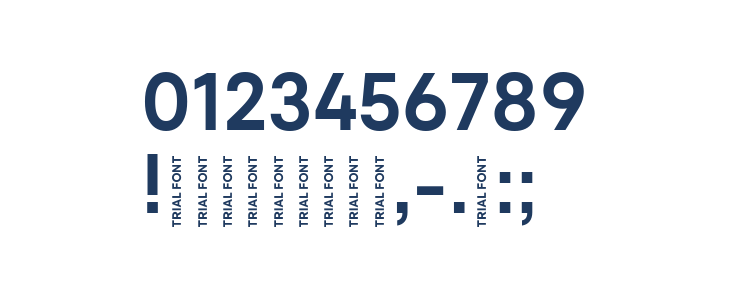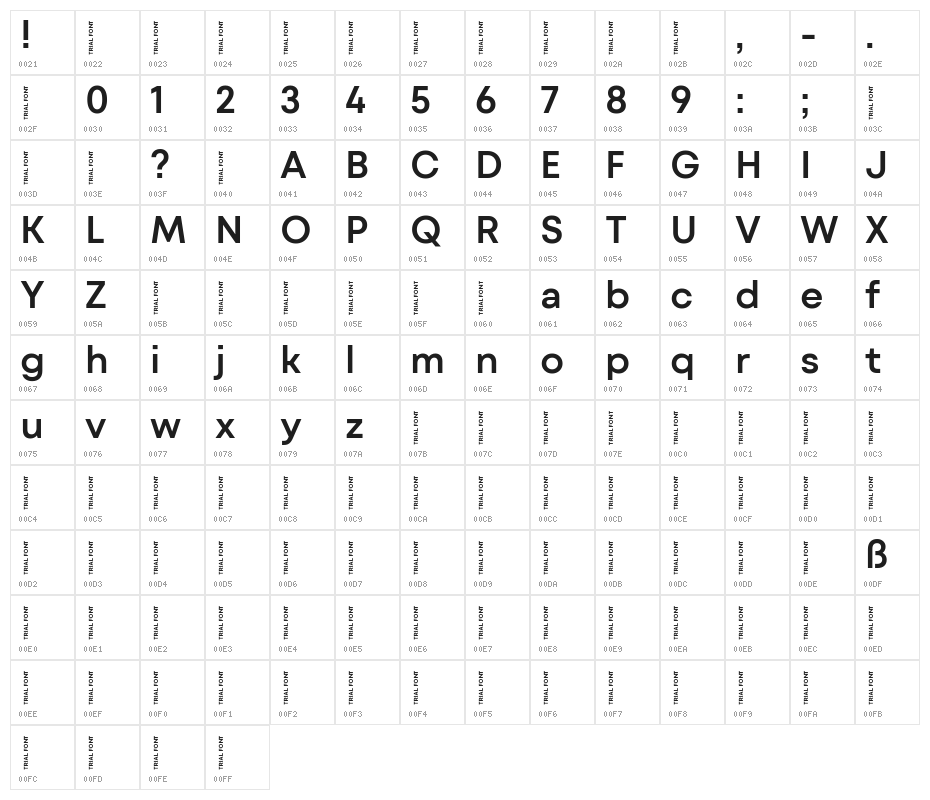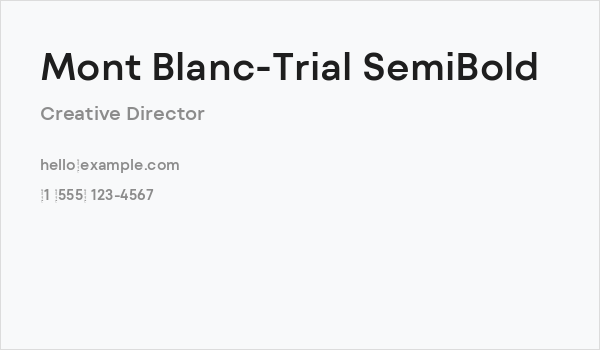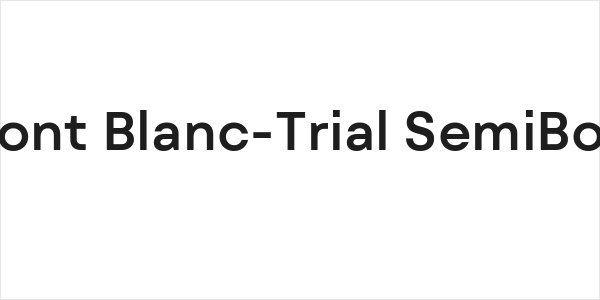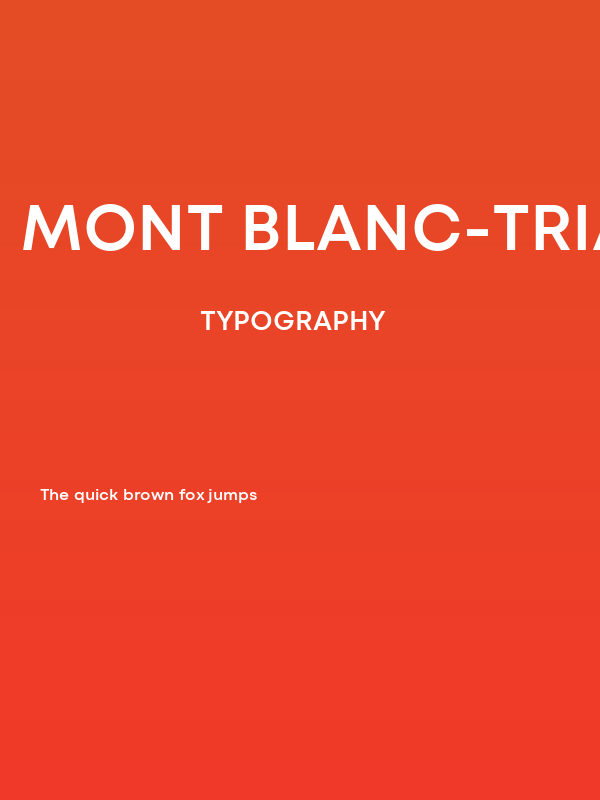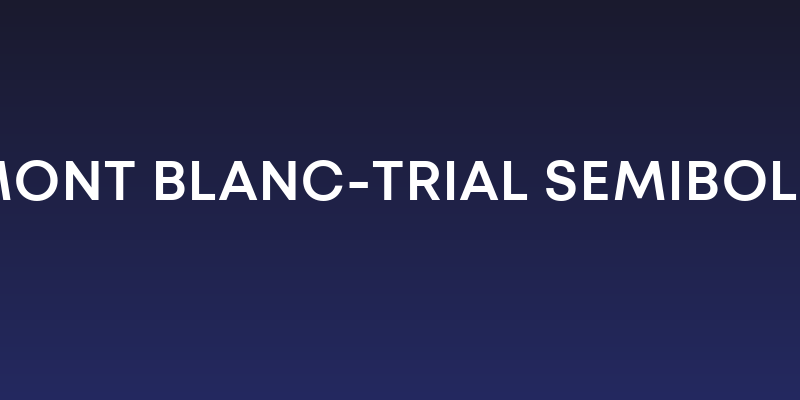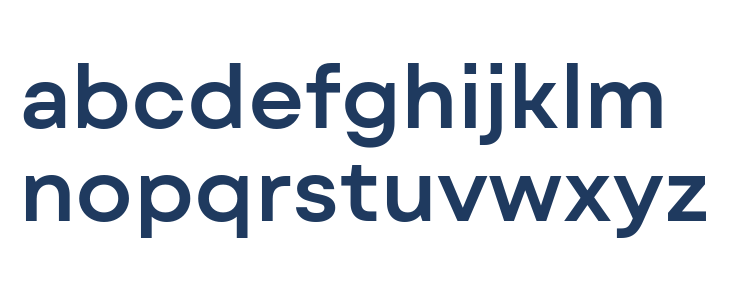
Mont Blanc-Trial SemiBold Font
Mont Blanc-Trial SemiBold Description
This font features a clean and modern sans-serif design with a semi-bold weight, offering a balanced and professional appearance. The characters are well-proportioned, with a consistent stroke width that provides a harmonious and uniform look. The uppercase letters are bold and assertive, while the lowercase letters maintain a friendly and approachable style. The numerals are clear and easy to read, making them suitable for various applications. The special characters are distinct and well-integrated into the overall design, ensuring versatility in usage. This font's simplicity and clarity make it ideal for both digital and print media.
| Proposed Projects | Ideal for branding, advertising, web design, and corporate communications. |